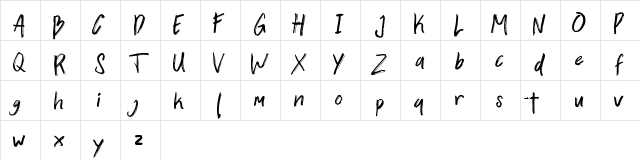
Zallord Regular
| Foundry | Alice Whales |
| Designer | Alice Whales |
Design Context for Zallord Typeface
Zallord is a composed and adaptable typeface that performs quietly and consistently across a wide range of design contexts.